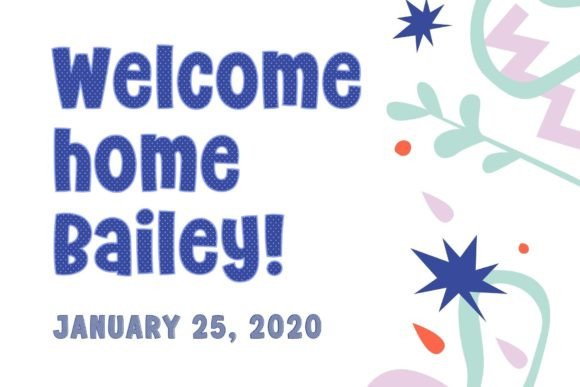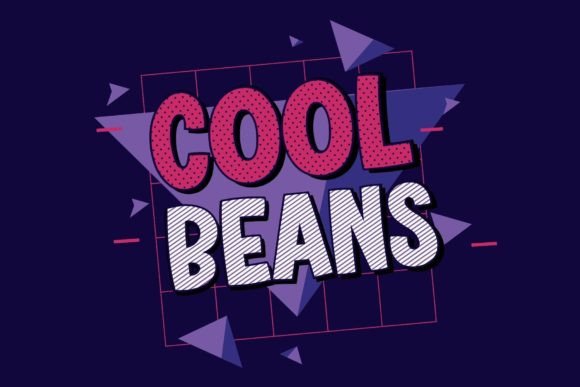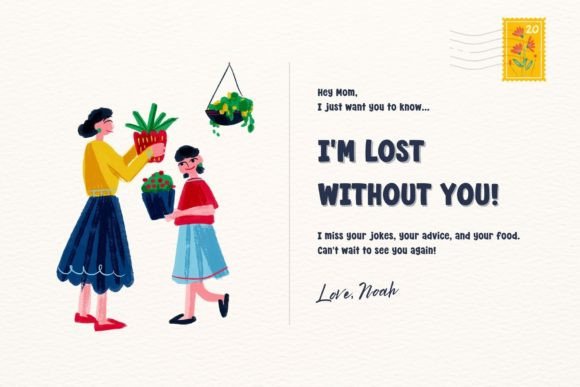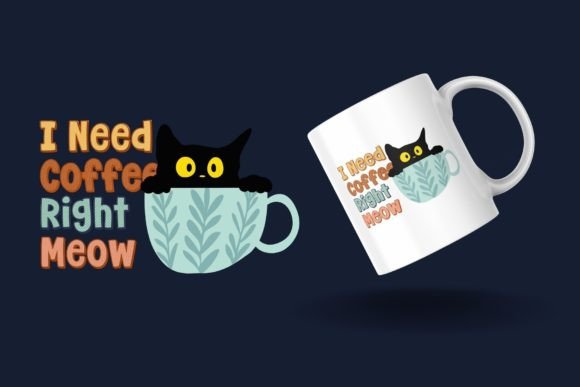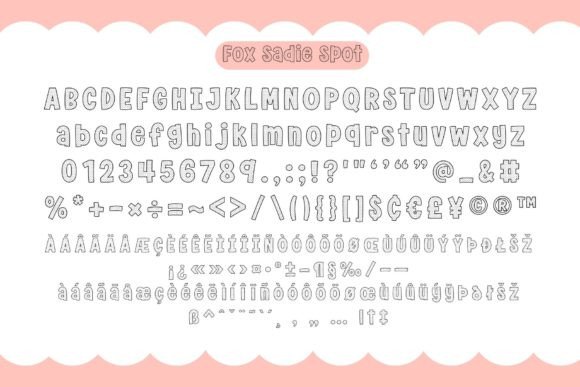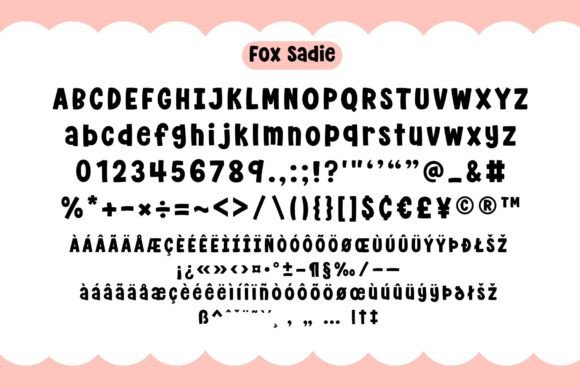
Introducing Fox Sadie Font: The Ultimate Display Font for Creative Designs
Are you tired of using the same old fonts for your designs? Look no further! Fox Sadie Font is a game-changing, 5-style font that adds a cool, cute, and playful touch to your creations. This captivating and energetic font is perfect for designers and crafters who want to make their work stand out from the crowd.
What Makes Fox Sadie Font Special?
Fox Sadie Font is a vibrant and expressive display font that boasts a unique design, making it ideal for attention-grabbing headlines, t-shirt typography, banners, product labels, and more. Its main feature is its ability to add a captivating and energetic touch to your designs, making it perfect for use in:
- Publications: Add a pop of personality to your magazine or newspaper articles with Fox Sadie Font.
- Menus: Make your restaurant or cafe menu stand out with this fun and playful font.
- Logos: Create a memorable brand identity with Fox Sadie Font’s unique and eye-catching design.
- Business Cards: Add a touch of whimsy to your professional business cards with this versatile font.
- T-Shirts: Print Fox Sadie Font on t-shirts for a bold and stylish statement.
Key Features of Fox Sadie Font
Fox Sadie Font comes with 5 styles, offering a range of creative possibilities. Some of its key features include:
- Vibrant and Expressive Design: Fox Sadie Font’s unique design makes it perfect for creating attention-grabbing headlines and titles.
- Playful and Cute: This font’s playful and cute style makes it ideal for designs that require a touch of whimsy.
- High-Quality Vector Graphics: Fox Sadie Font is designed with high-quality vector graphics, ensuring it remains crisp and clear even at large sizes.
Fox Sadie Font offers a range of benefits for designers and crafters, including:
- Unique Designs: Fox Sadie Font’s unique design ensures your work stands out from the crowd.
- Time-Saving: With 5 styles to choose from, Fox Sadie Font saves you time and effort in finding the perfect font for your design.
- Versatility: Fox Sadie Font can be used in a range of design applications, from publications to t-shirts.
Tips for Using Fox Sadie Font
To get the most out of Fox Sadie Font, here are some tips:
- Experiment with Different Styles: Try out different styles of Fox Sadie Font to find the one that works best for your design.
- Combine with Other Fonts: Pair Fox Sadie Font with other fonts to create a unique and visually appealing design.
- Use for Headlines and Titles: Fox Sadie Font is perfect for headlines and titles, so use it to make a statement.
- Don’t Overuse: Use Fox Sadie Font sparingly to avoid overwhelming your design.
Fox Sadie Font is a versatile and creative display font that adds a captivating and energetic touch to your designs. With its unique design, 5 styles, and ease of use, it’s perfect for designers and crafters who want to make their work stand out. Whether you’re creating publications, menus, logos, business cards, or t-shirts, Fox Sadie Font is the ultimate font for your design needs.